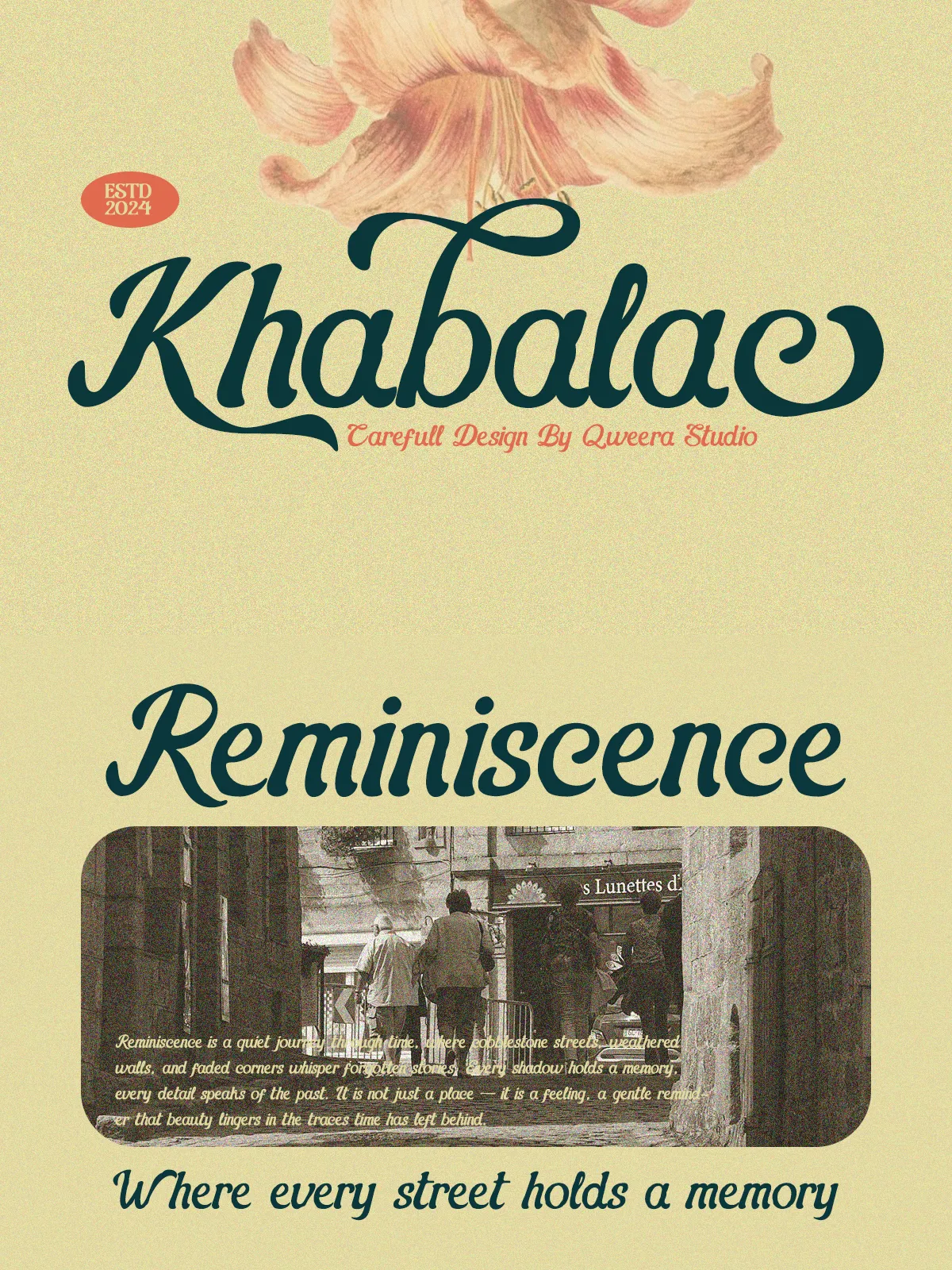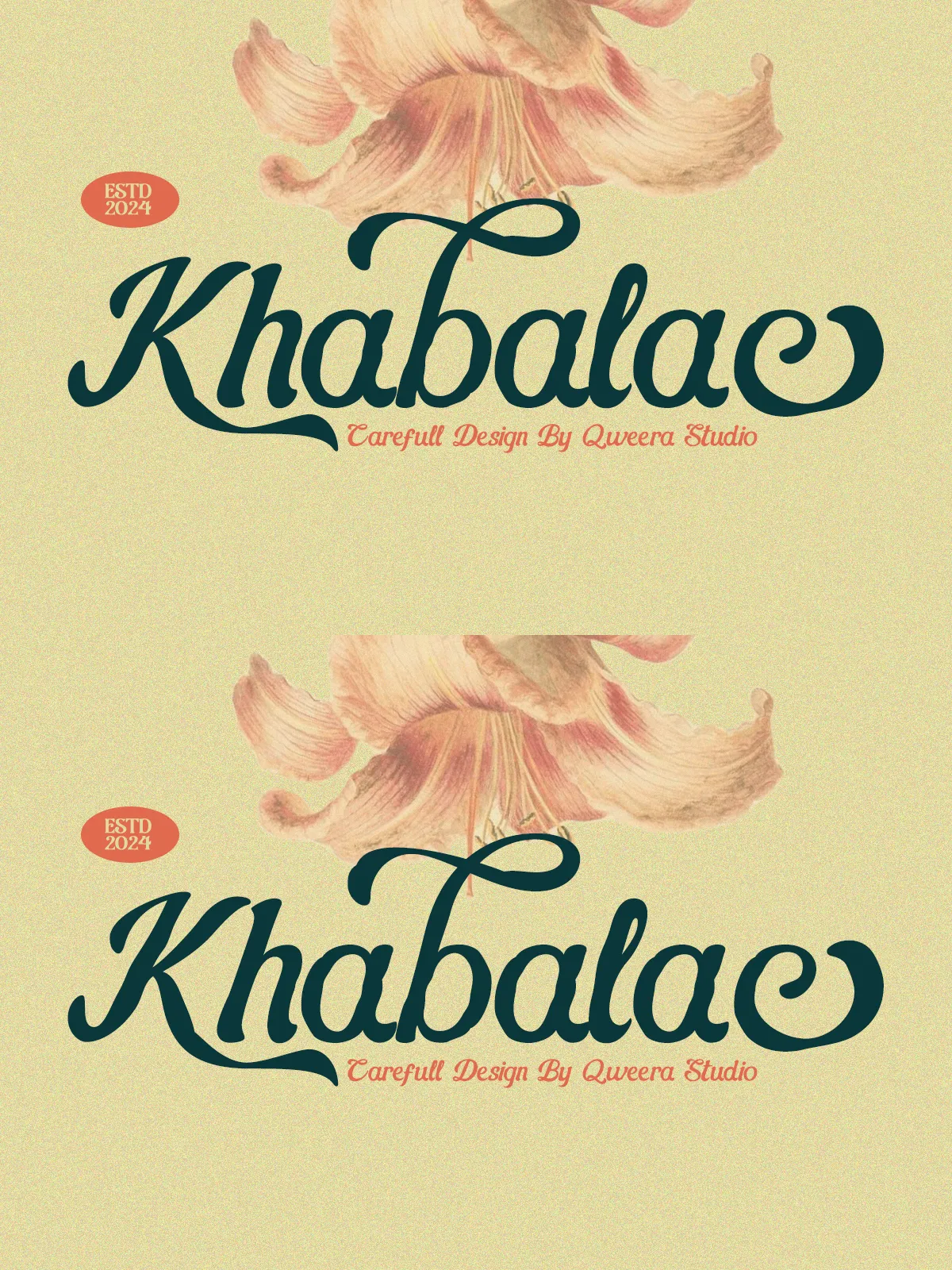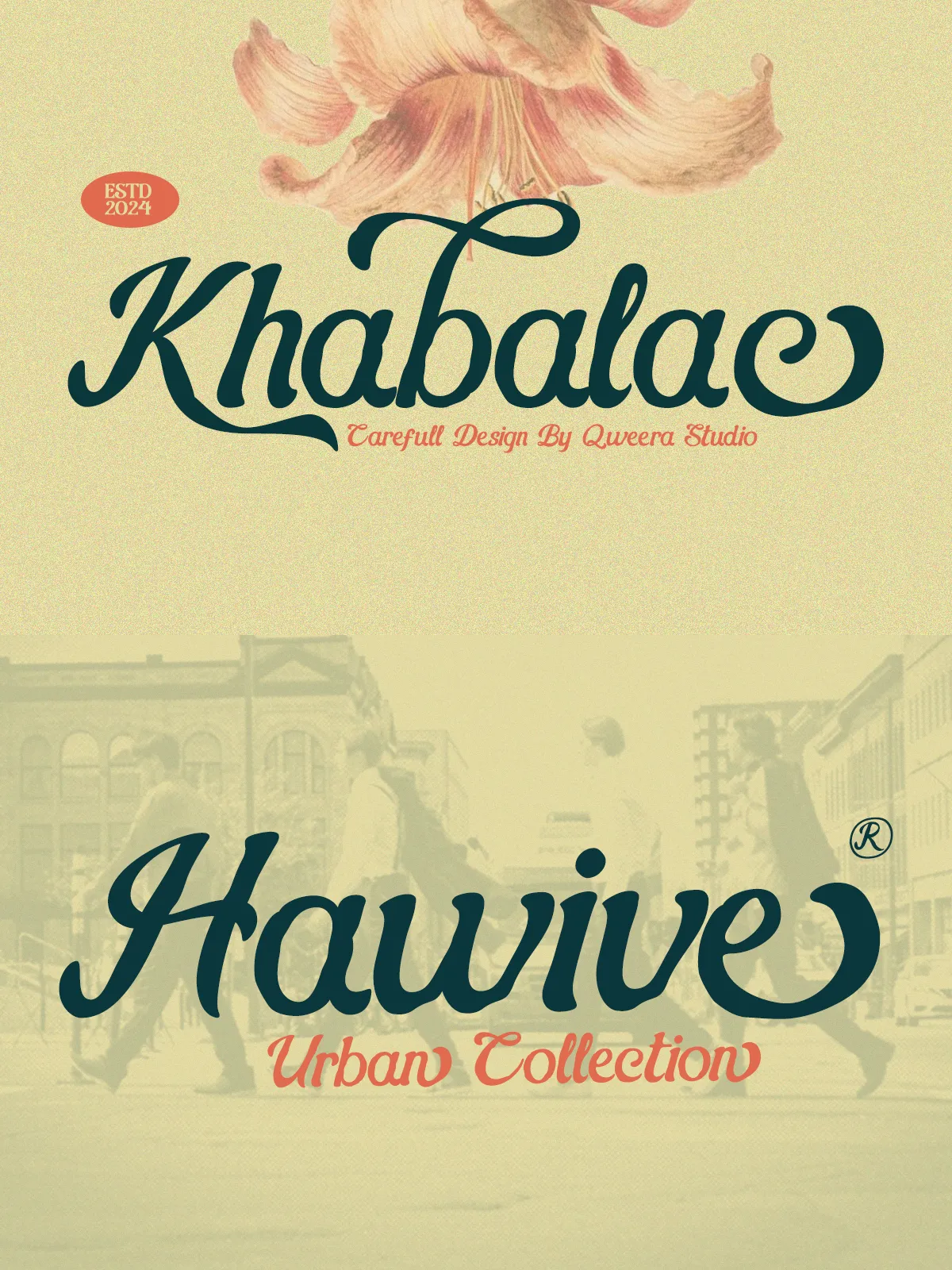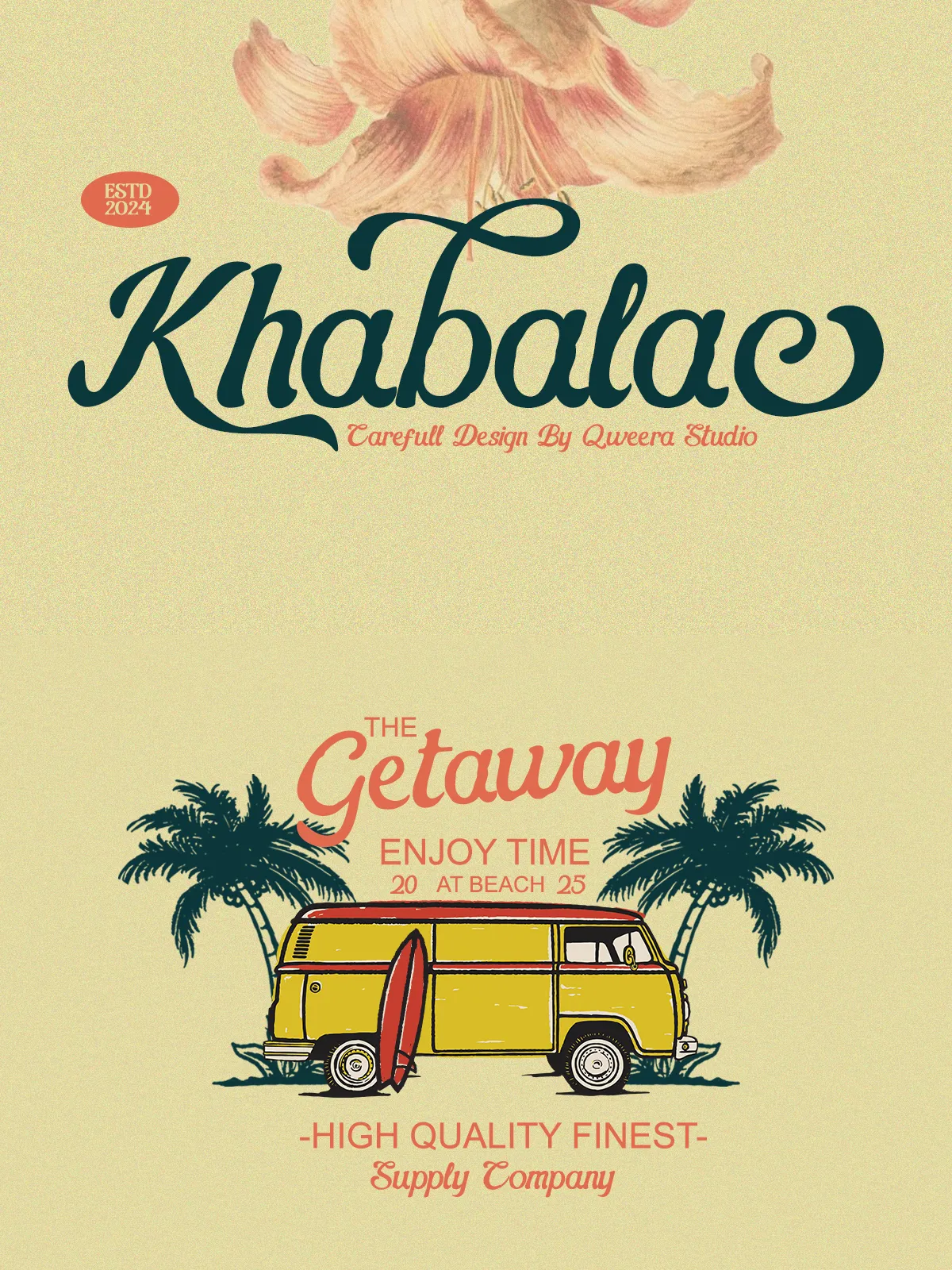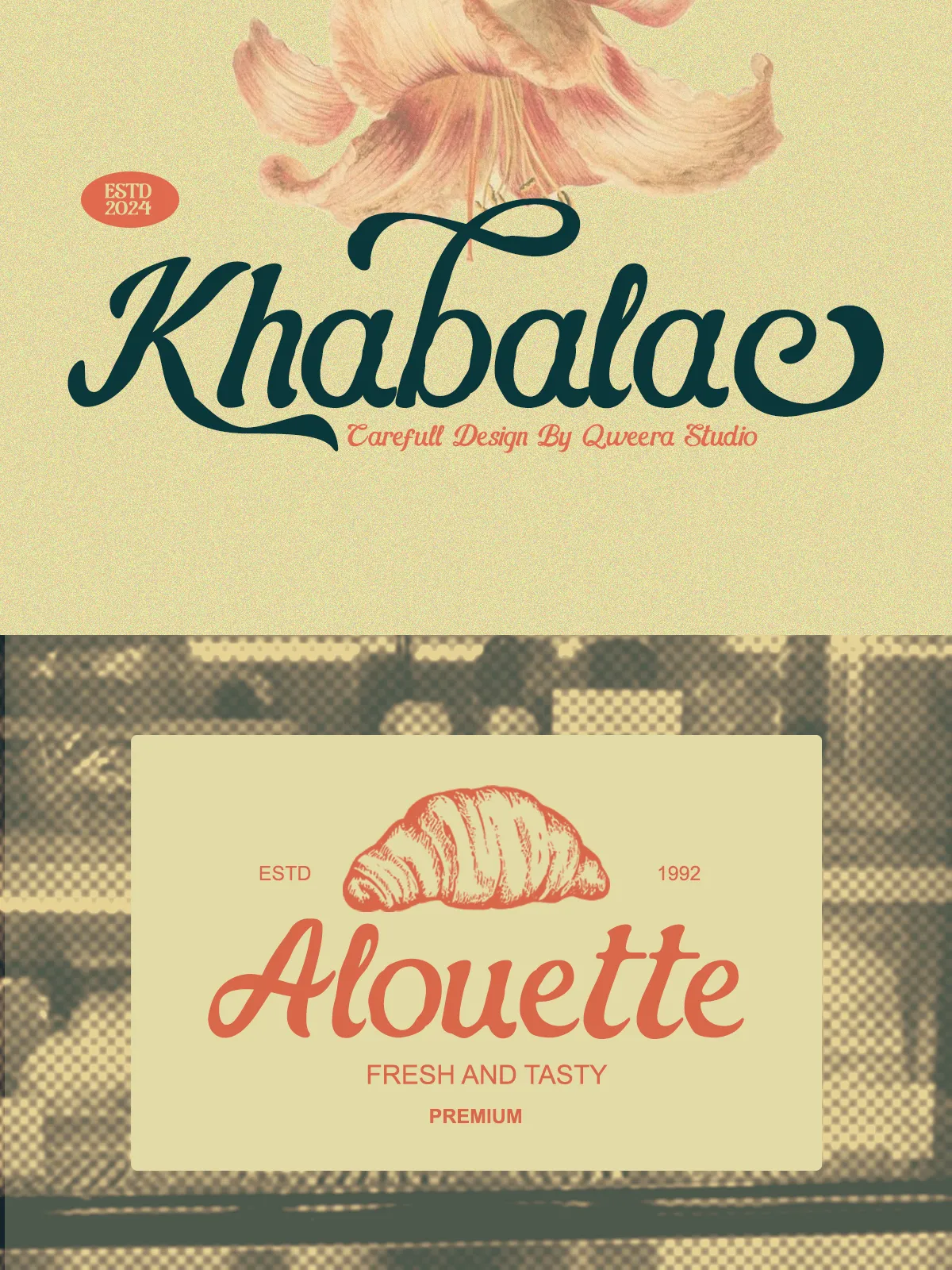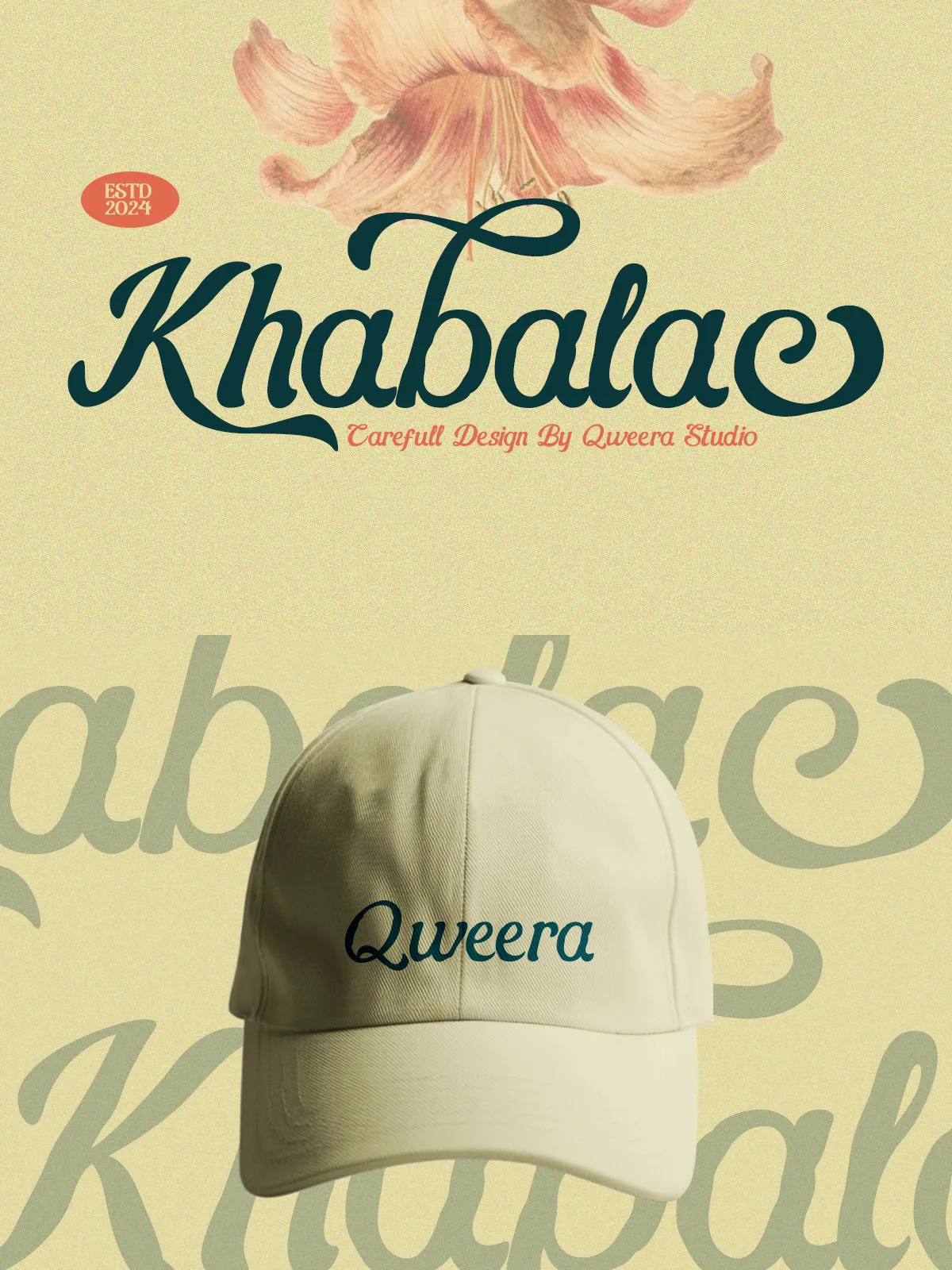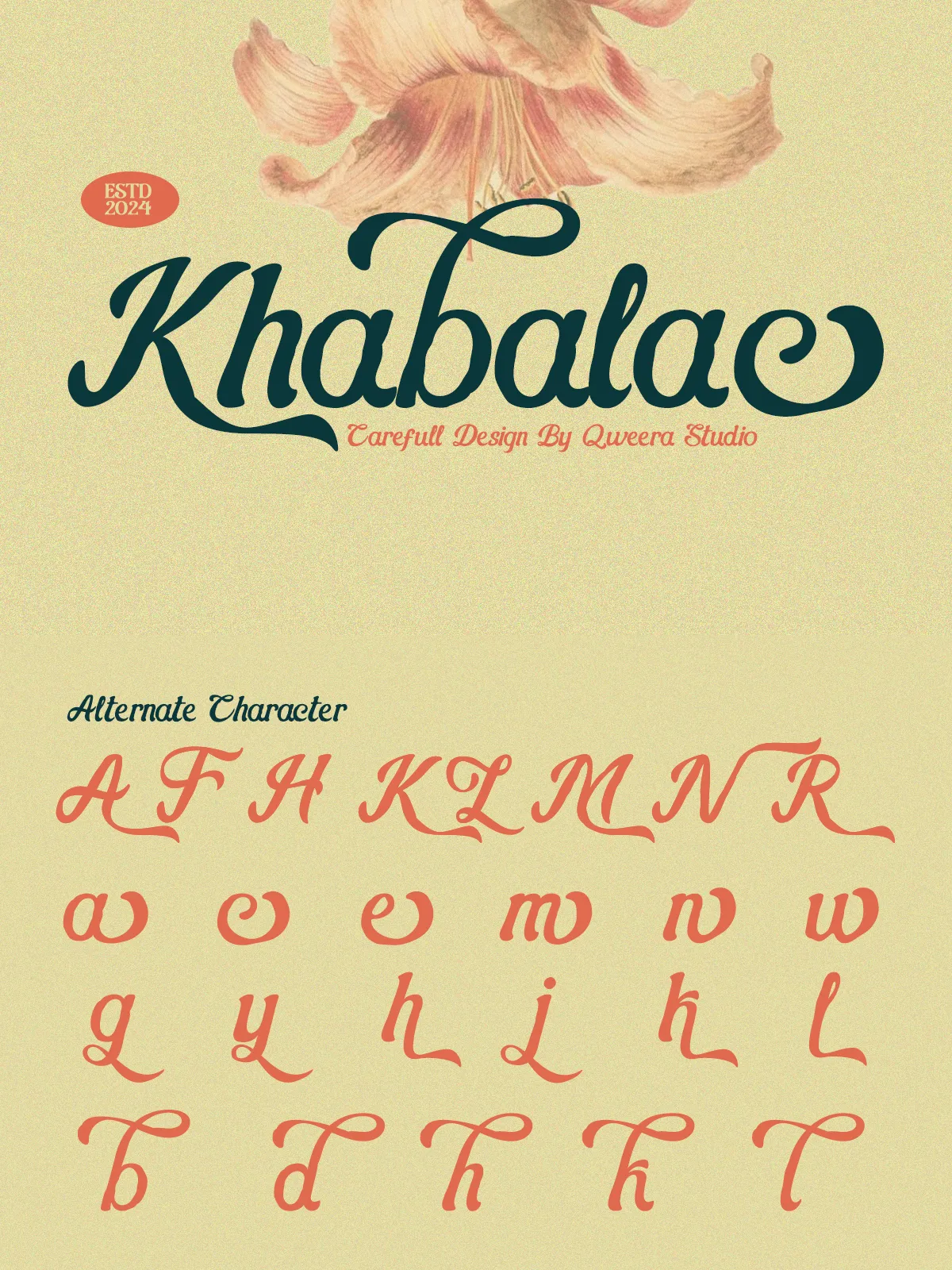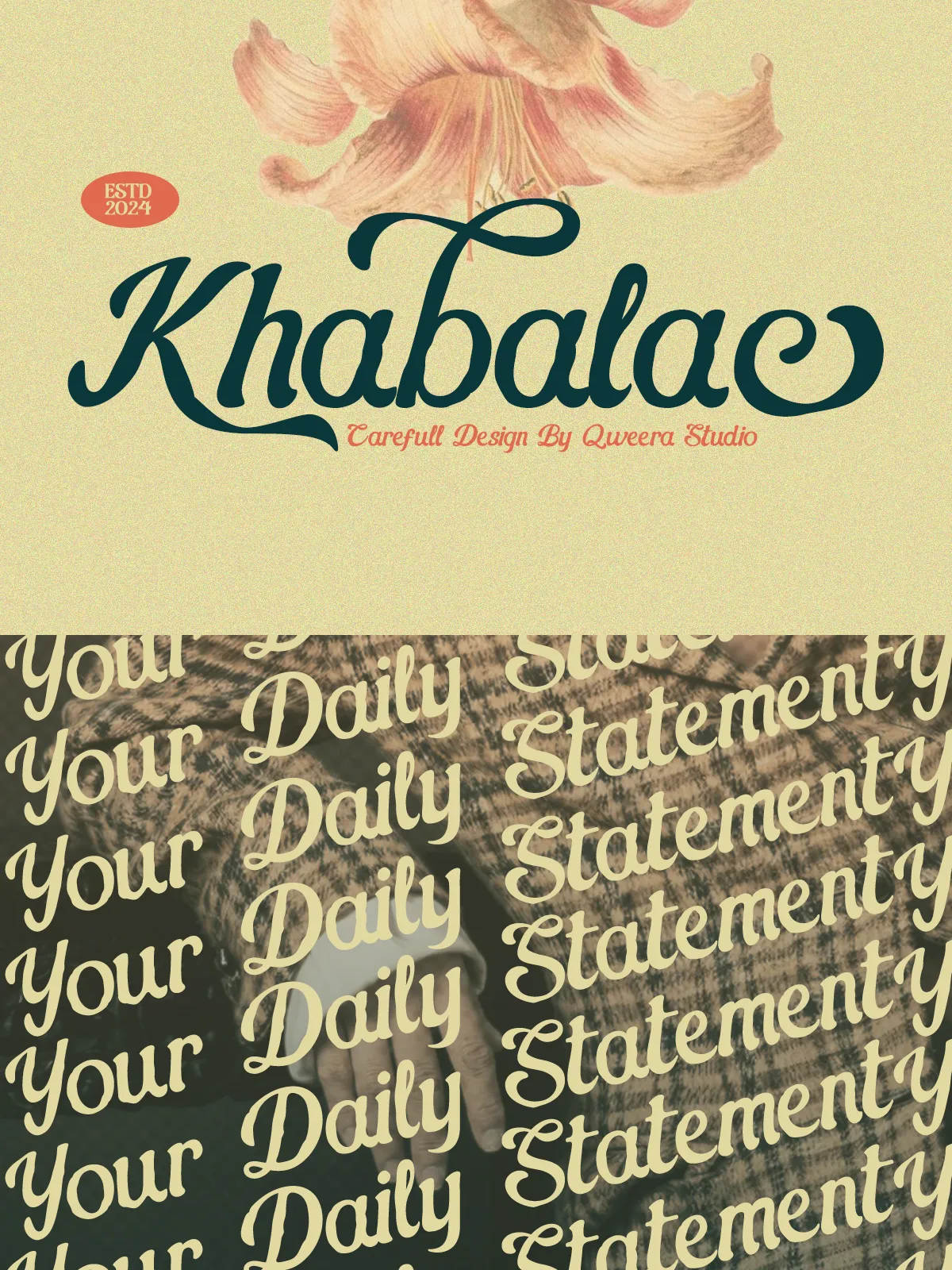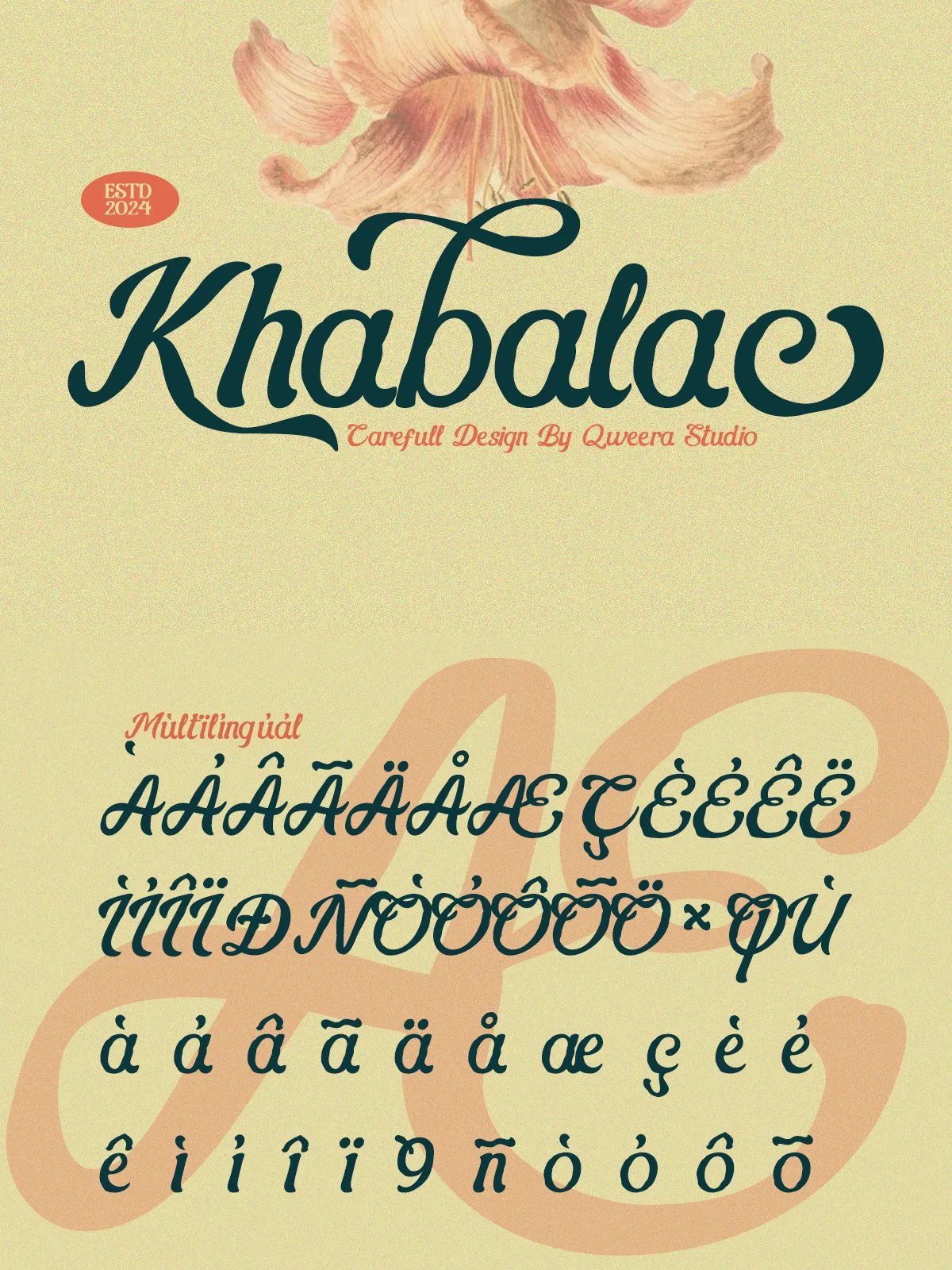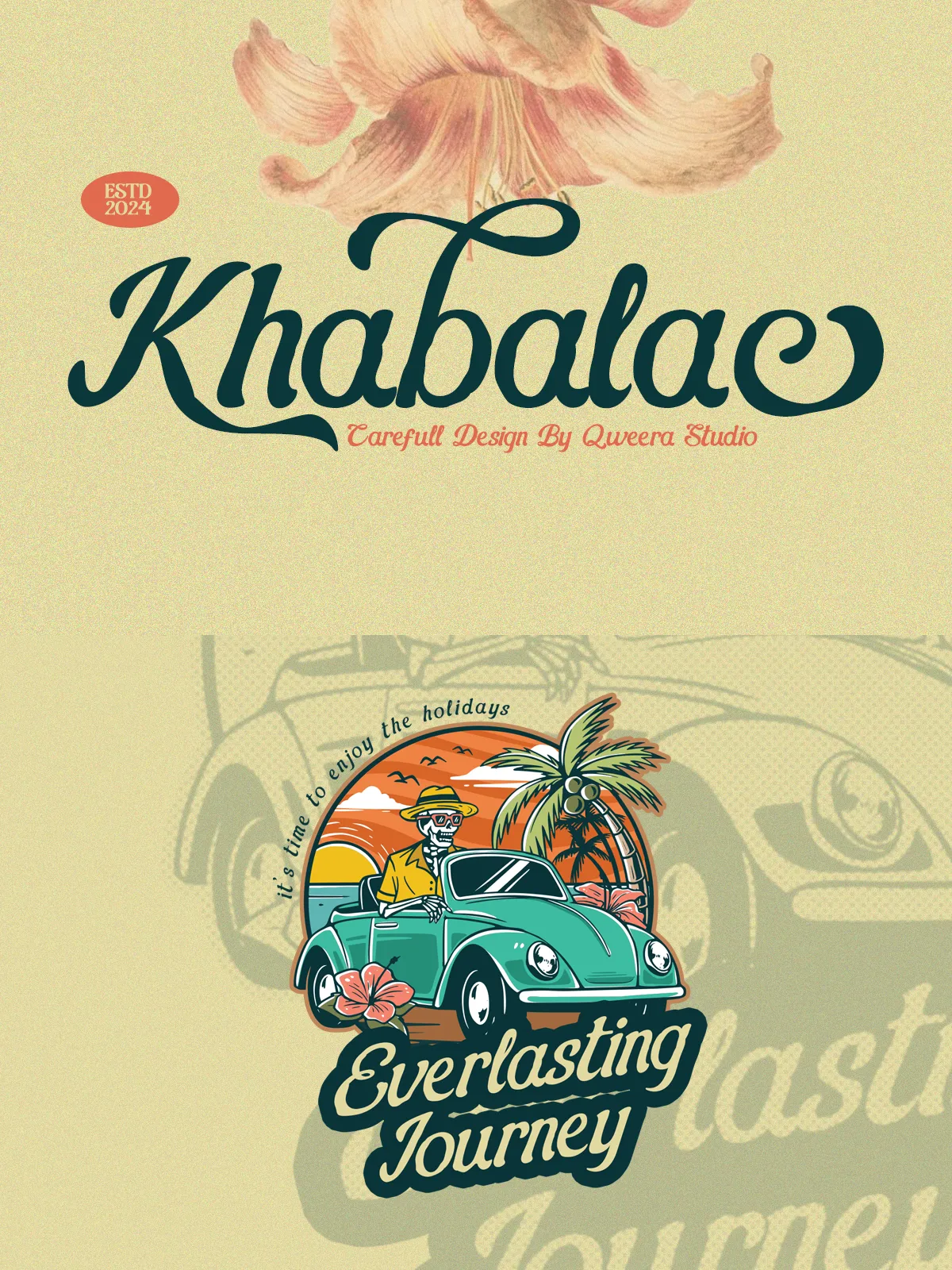
Khabalac is a vintage floral script font designed for creators who want a warm, romantic, and handcrafted aesthetic. Cleanly drawn yet richly detailed, Khabalac pairs flowing letterforms with decorative swashes and expressive ligatures to deliver typography that reads beautifully at display sizes and commands attention in brand identities. Use Khabalac to communicate refined charm, timeless elegance, and a touch of nostalgic romance in every project.
Design Character
Script Anatomy and Visual Style
Khabalac features soft terminals, graceful connections, and floral-inspired flourishes that enhance the overall silhouette without compromising legibility. The script balances rhythmic strokes and contrast to create a natural handwritten feel. Alternates and ligatures introduce variety and authenticity, preventing repetitive forms and helping you create unique wordmarks and headlines instantly.
Personality and Tone
The typeface reads as both intimate and polished. It evokes vintage floral signage, hand-addressed invitations, and artisan packaging. Designers will find Khabalac equally effective for romantic wedding suites and boutique product identities, where the font’s personality strengthens the emotional connection between brand and audience.
Features
Complete, Production-Ready Toolkit
- Uppercase and lowercase alphabets optimized for display use
- Contextual alternates and stylistic sets to vary letterforms naturally
- Rich set of ligatures that create smooth, decorative joins
- Multilingual support for extended Latin languages
- Professional kerning and consistent metrics to ensure reliable composition
Perfect For
Primary Applications and Use Cases
- Wedding invitations, save-the-dates, and ceremony programs
- Boutique branding, logos, and monograms
- Product labels, floral packaging, and handcrafted goods
- Café and restaurant signage or menu headers
- Social media templates, Instagram quotes, and promotional banners
- Editorial mastheads, feature titles, and magazine cover lines
- Photography watermarks, signature logos, and personalized stationery
How to Use Khabalac Effectively
Design Tips and Best Practices
- Use Khabalac as a display face—headlines, logos, and focal elements—paired with a minimal sans or a restrained serif for supporting copy.
- Apply stylistic alternates and ligatures to build unique wordmarks and to avoid repetitive patterns in long names or phrases.
- Increase tracking slightly at large sizes to let decorative swashes breathe and preserve clarity.
- Pair the script with high-contrast backgrounds or subtle textures to emphasize its vintage tone without sacrificing readability.
- When typesetting small blocks of text, use the serif or sans companion to maintain legibility while preserving Khabalac for accents.